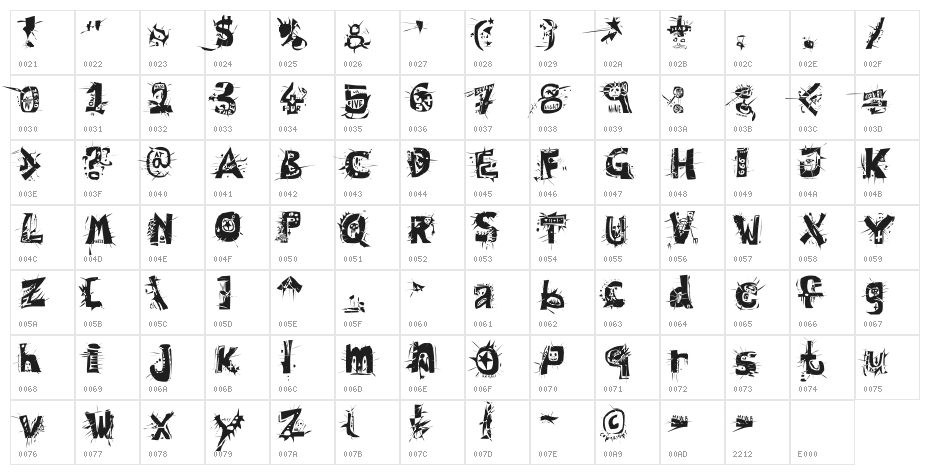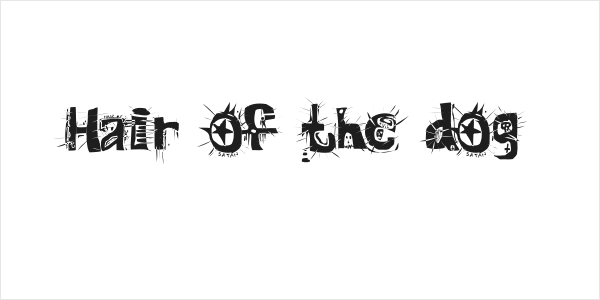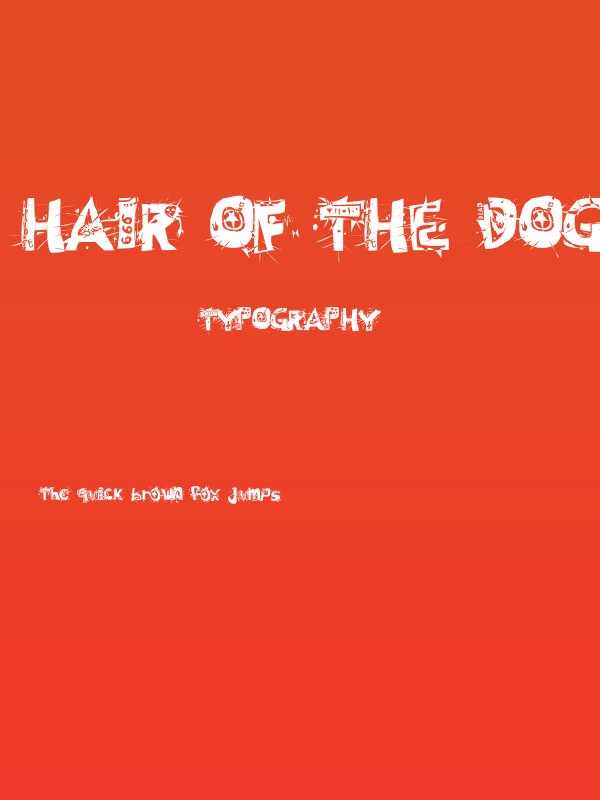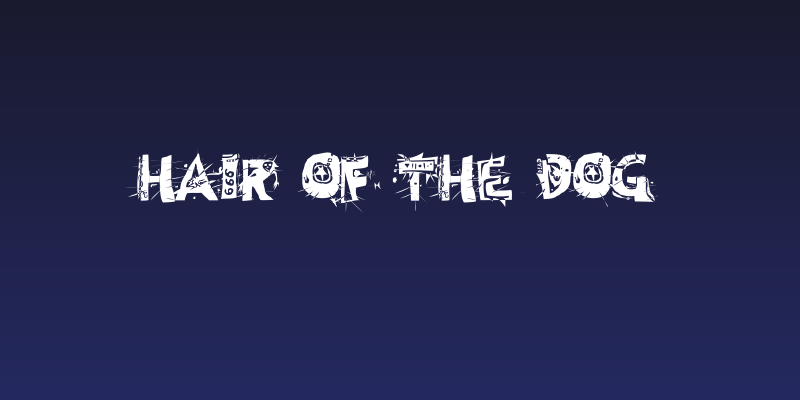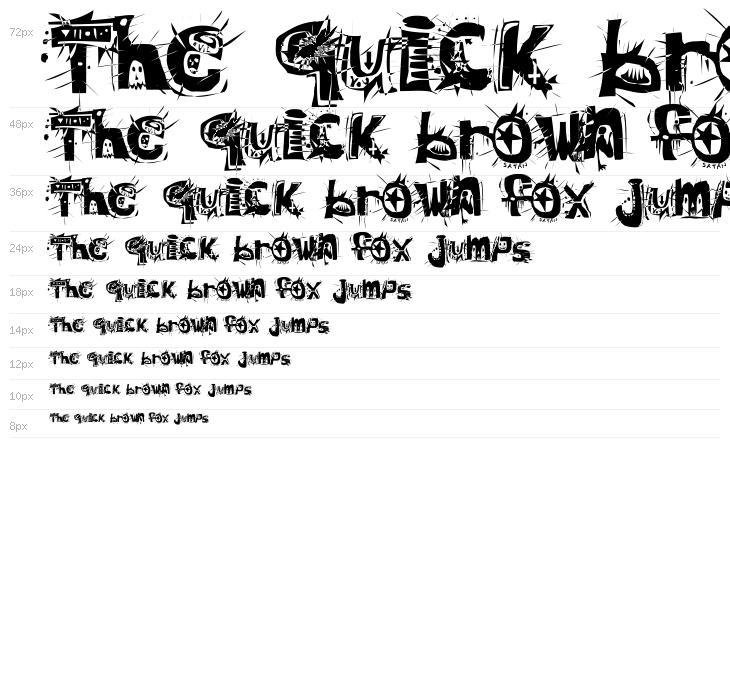
Hair of the dog Font
Hair of the dog Description
This font is a bold, chaotic display typeface with a punk rock aesthetic. Each character is uniquely designed with jagged edges, splatters, and a distressed look, giving it a rebellious and edgy feel. The uppercase and lowercase letters are highly stylized, incorporating elements like spikes and abstract shapes. Numbers are creatively integrated with words and symbols, adding to the font's unconventional style. Special characters maintain the same energetic and raw design, making this font ideal for projects that require a strong visual impact.
| Overall Style | Punk, Rebellious, Edgy |
| Proposed Projects | Ideal for music album covers, concert posters, streetwear branding, and edgy graphic design projects. |